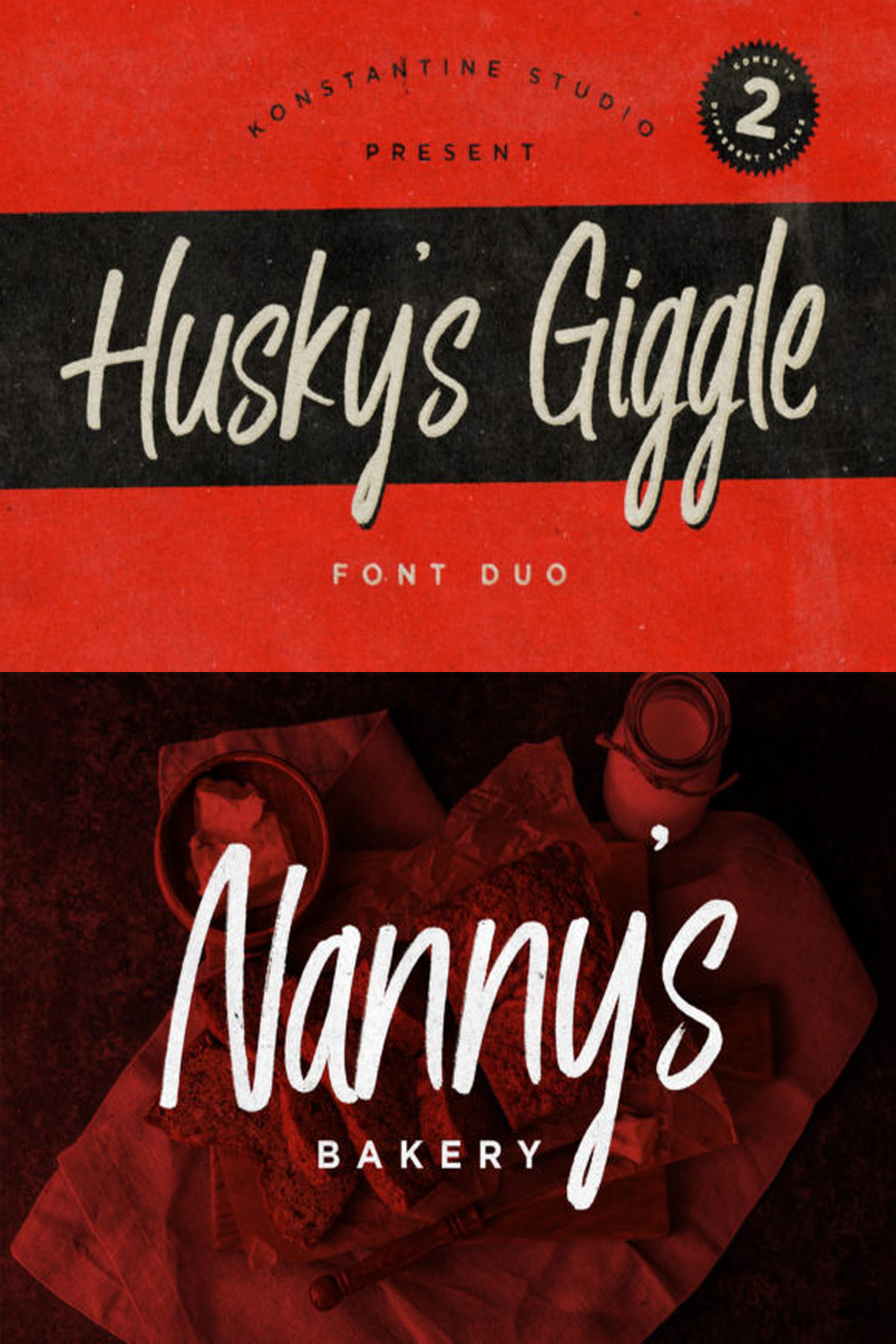
Husky’s Giggle Font
About the Husky’s Giggle Font
Crafted with precision, the Husky’s Giggle Font is ready to bring your ideas to life. Husky’s Giggle is an elegant and dainty handwritten font that features sweet and delicate swashes. This original look will appeal to a wide range of crafty ideas, from letterheads and titles, to stationery.
Husky’s Giggle excels in applications requiring a touch of delicate elegance, such as wedding invitations, greeting cards, or branding for artisanal goods. Its charming swashes work beautifully in headlines, short quotes, and logos, adding a personalized touch. However, its handwritten nature makes it less suitable for body text or UI elements where readability is paramount; long paragraphs set in this font would be difficult to read.
Pairings should complement its delicate nature. Consider a clean sans-serif like Lato or Open Sans for body text to provide contrast and improve readability. For a more playful approach, a geometric sans-serif like Montserrat could add a modern edge. A classic serif like Garamond could also be used for a more traditional feel, offering a sophisticated counterpoint to the script’s whimsy.
The overall personality of Husky’s Giggle is undeniably charming and friendly, conveying a sense of warmth and handcrafted quality. Its delicate lines and playful swashes make it ideal for projects that aim for a sophisticated yet approachable aesthetic.